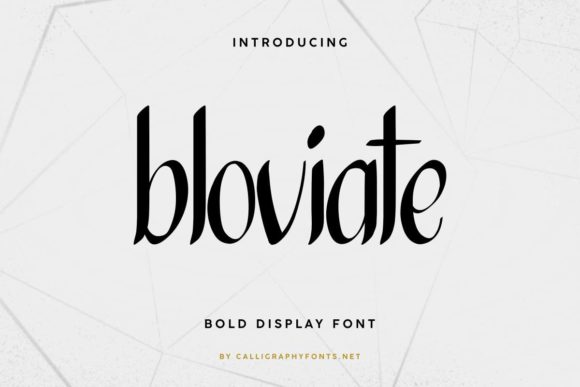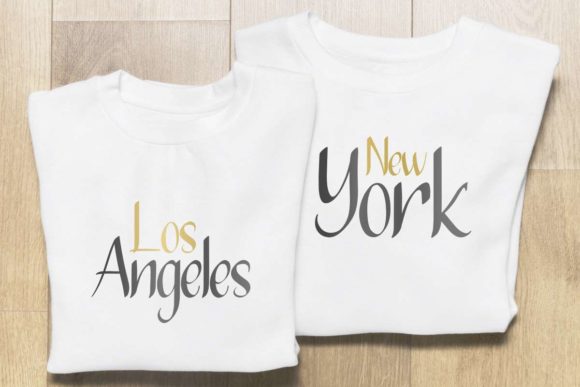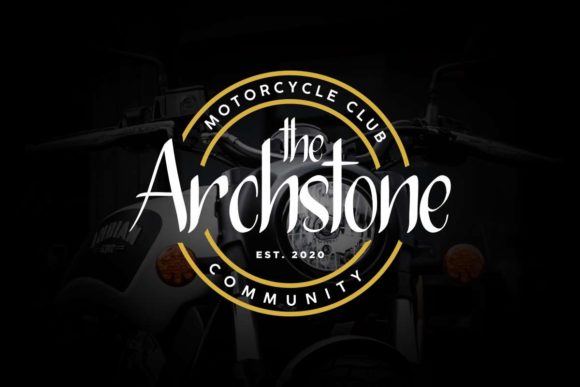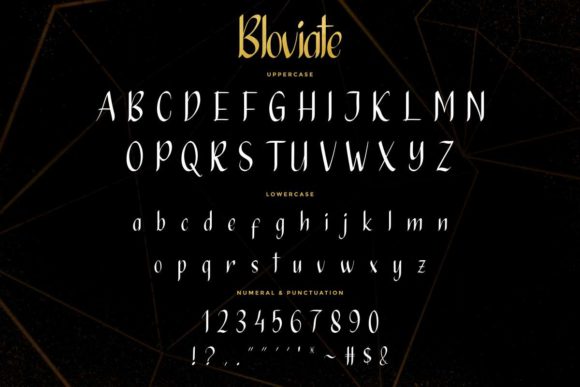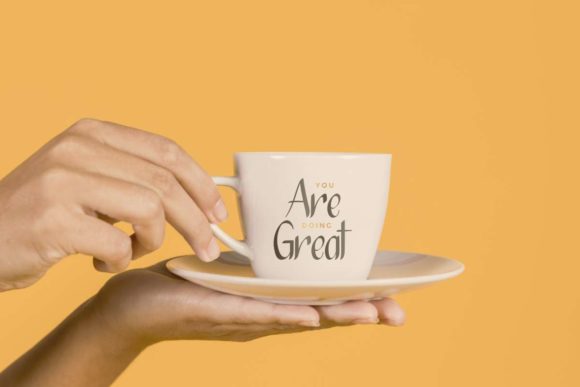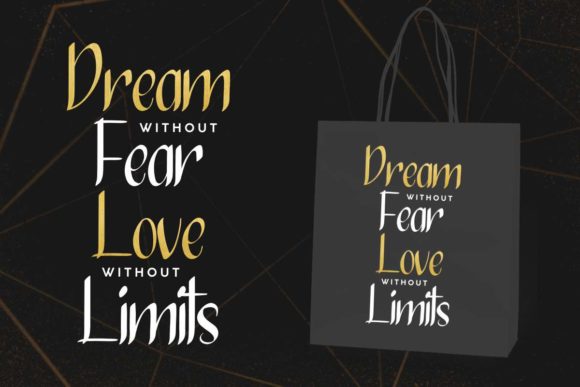
Introducing Bloviate Font: A Bold and Simple Lettered Display Font
Are you tired of using the same old fonts in your designs? Look no further than Bloviate Font, a bold and simple lettered display font that’s perfect for adding a touch of uniqueness to your projects. With its natural and unique style, Bloviate Font is incredibly fitting to a large pool of designs, making it a versatile and valuable addition to any designer’s toolkit.
What is Bloviate Font?
Bloviate Font is a display font that’s designed to make a statement. Its bold and simple lettering style makes it perfect for headlines, titles, and other applications where you want to grab the viewer’s attention. But what really sets Bloviate Font apart is its natural and unique style, which gives it a distinctive look that’s both modern and timeless.
Key Features of Bloviate Font
- Bold and Simple Lettering Style: Bloviate Font features a bold and simple lettering style that’s perfect for making a statement.
- Natural and Unique Style: The font’s natural and unique style makes it incredibly fitting to a large pool of designs.
- Versatile: Bloviate Font is versatile and can be used in a variety of design applications, from print to digital.
- Easy to Read: Despite its bold style, Bloviate Font is easy to read, making it perfect for use in headlines and titles.
Uses for Bloviate Font
Bloviate Font is perfect for a wide range of design applications, including:
- Headlines and Titles: Use Bloviate Font to create bold and eye-catching headlines and titles that grab the viewer’s attention.
- Logos and Branding: Bloviate Font is perfect for use in logos and branding, where its unique style can help to set your brand apart.
- Posters and Flyers: Use Bloviate Font to create bold and eye-catching posters and flyers that get noticed.
- Digital Designs: Bloviate Font is perfect for use in digital designs, including social media graphics, website headers, and more.
Why Choose Bloviate Font?
There are many fonts to choose from, but Bloviate Font stands out for several reasons:
- Unique Style: Bloviate Font has a unique style that’s both modern and timeless.
- Versatility: The font is versatile and can be used in a wide range of design applications.
- High-Quality: Bloviate Font is a high-quality font that’s designed to produce crisp and clear results.
Tips for Using Bloviate Font
Here are a few tips for using Bloviate Font:
- Use it Boldly: Bloviate Font is designed to be used boldly, so don’t be afraid to make it big and bold.
- Experiment with Colors: Try experimenting with different colors to find the one that works best with Bloviate Font.
- Pair it with Other Fonts: Bloviate Font can be paired with other fonts to create a unique and interesting look.
Bloviate Font is a bold and simple lettered display font that’s perfect for adding a touch of uniqueness to your designs. With its natural and unique style, Bloviate Font is incredibly fitting to a large pool of designs, making it a versatile and valuable addition to any designer’s toolkit. Whether you’re a professional designer or a crafty DIY enthusiast, Bloviate Font is a great choice for any project.